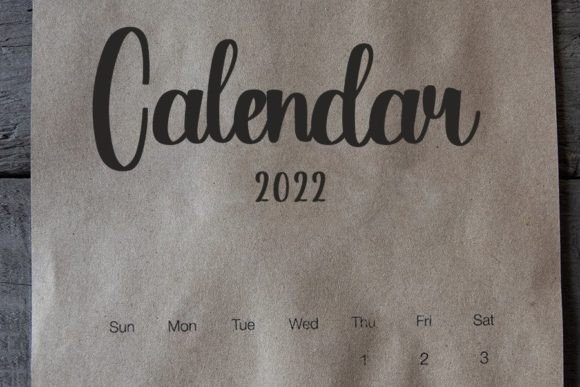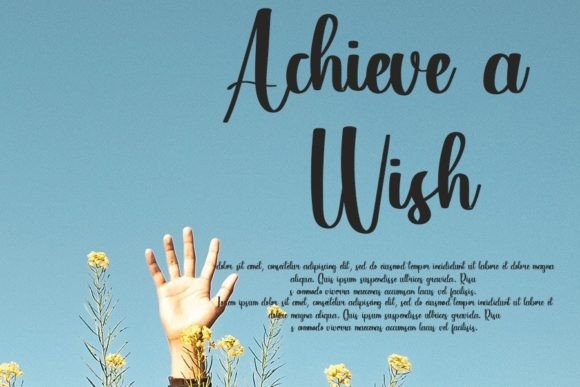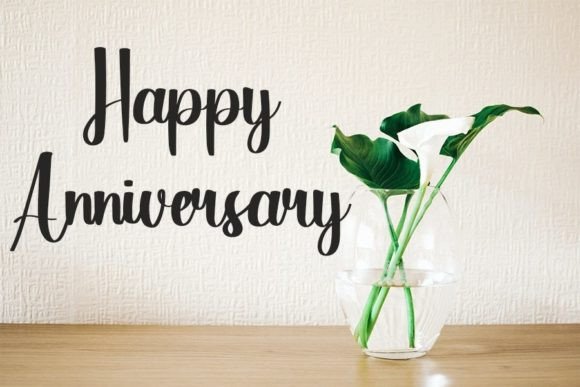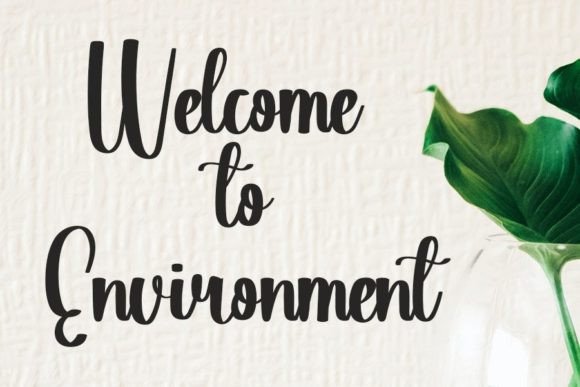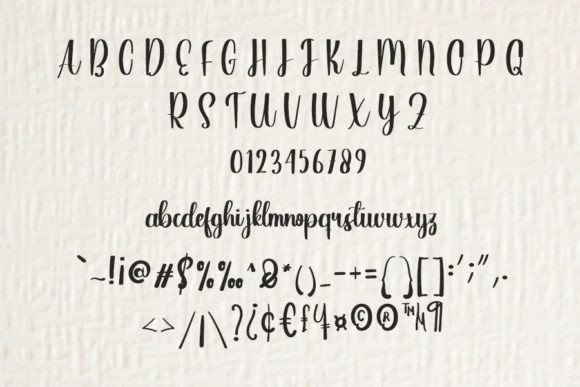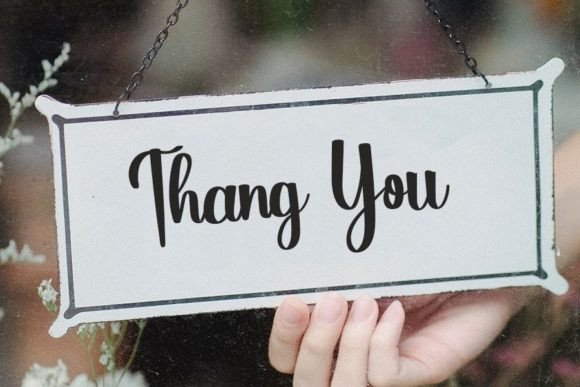
Introducing Gladiatings Font: The Ultimate Handwritten Companion for Designers
Are you tired of using the same old fonts in your designs? Look no further! Gladiatings Font is here to revolutionize your creative process with its clean, relaxed, and friendly handwritten style. This versatile font is perfect for a wide range of designs, from casual social media posts to professional branding materials.
The Characteristics of Gladiatings Font
Gladiatings Font boasts a neat and simple style that makes it an excellent choice for designers and crafters. Its clean lines and relaxed vibe evoke a sense of friendliness, making it perfect for designs that require a personal touch. Whether you’re working on a logo, brochure, or website, Gladiatings Font is sure to impress.
Why Gladiatings Font Stands Out
So, what sets Gladiatings Font apart from other fonts? Here are a few reasons why it’s about to become your go-to font:
- Versatility: Gladiatings Font is suitable for a wide variety of designs, from formal to informal, and can be used in various contexts, including digital and print materials.
- Readability: The font’s clean and simple style ensures that your text is easy to read, even at small sizes.
- Uniqueness: Gladiatings Font has a distinct handwritten feel that will add a touch of personality to your designs.
Use Cases for Gladiatings Font
Gladiatings Font is an excellent choice for various design projects, including:
- Branding and logos: Create a lasting impression with a custom logo that showcases your brand’s personality.
- Social media graphics: Stand out on social media with eye-catching graphics that feature Gladiatings Font.
- Web design: Use Gladiatings Font to create a friendly and approachable website that resonates with your audience.
- Print materials: From brochures to business cards, Gladiatings Font is perfect for various print materials.
Tips for Using Gladiatings Font Effectively
To get the most out of Gladiatings Font, follow these tips:
- Pair it with other fonts: Combine Gladiatings Font with other fonts to create a unique and visually appealing design.
- Experiment with colors: Try out different color schemes to find the perfect match for your design.
- Keep it simple: Don’t overcomplicate your design – Gladiatings Font is perfect for simple, yet effective designs.
Gladiatings Font is a game-changer for designers and crafters looking for a clean, relaxed, and friendly handwritten font. Its versatility, readability, and uniqueness make it an excellent choice for a wide range of designs. With Gladiatings Font, you’ll be able to create stunning designs that resonate with your audience. So, what are you waiting for? Give Gladiatings Font a try today and experience the difference for yourself!